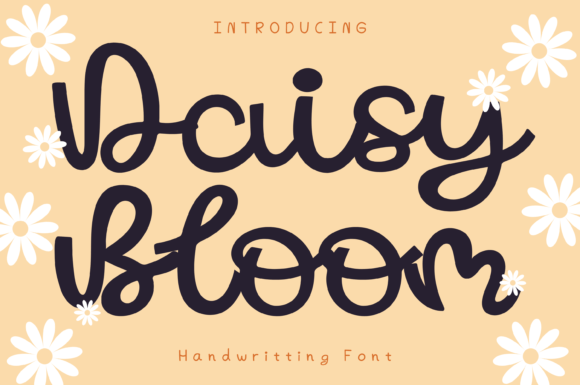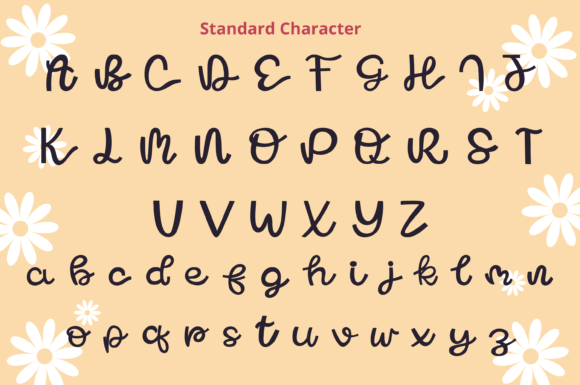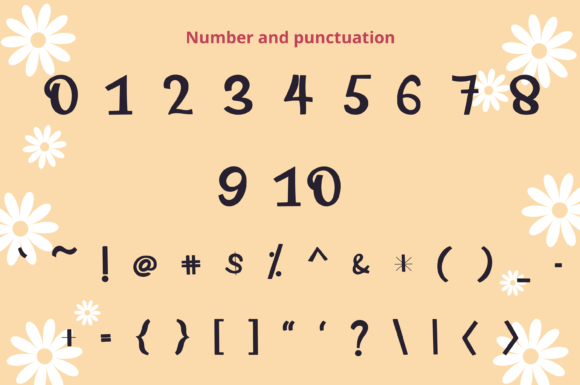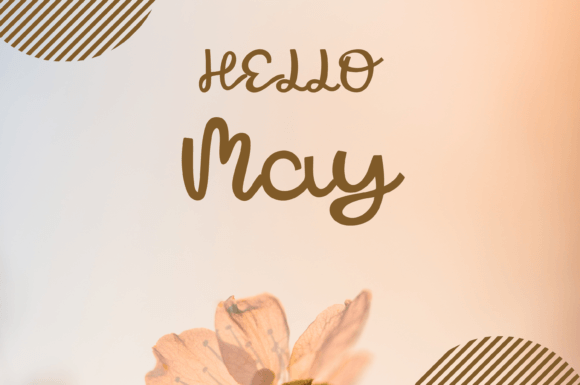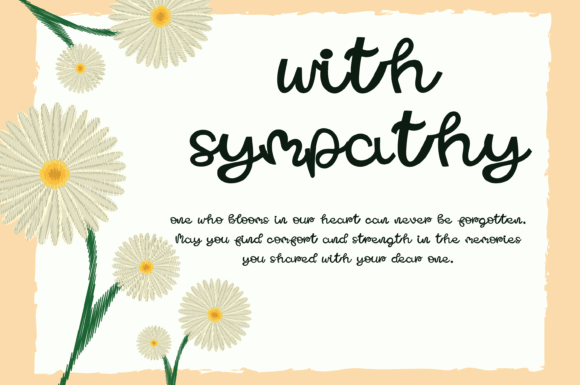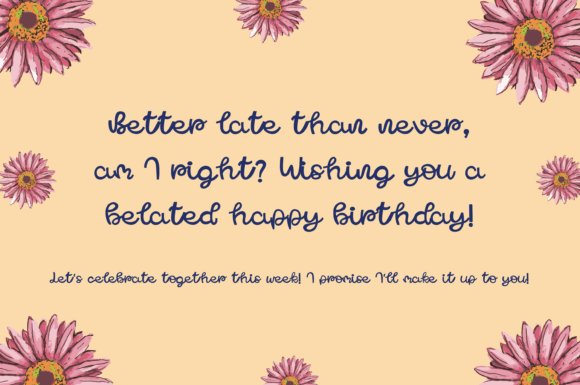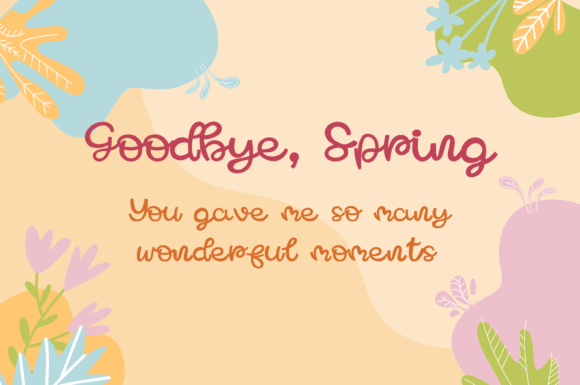
Adding Whimsy to Your Designs: The Power of Daisy Bloom Font
Remember that moment when you’re brainstorming ideas for a new project, and suddenly, a spark of creativity hits you? The words start flowing, and you can envision the perfect visual representation. This is where the right font can make all the difference. A beautiful, handwritten font can elevate your design from ordinary to extraordinary, and that’s exactly what the Daisy Bloom Font is designed to do.
With its whimsical and clean style, the Daisy Bloom Font is perfect for a wide range of projects, from invitations and greeting cards to branding and advertising materials. As a designer, you’ll appreciate the versatility and uniqueness it brings to your work. Whether you’re looking to add a touch of elegance or a dash of playfulness, the Daisy Bloom Font is sure to make your designs stand out.
Daisy Bloom Font Key Features
- Font Styles: Daisy Bloom Font is available in 3 unique font styles: Regular, Italic, and Bold, allowing for a wide range of creative applications.
- Unique Characteristics: Daisy Bloom Font features a unique blend of hand-drawn and digital elements, resulting in a distinctive, elegant, and sophisticated design aesthetic.
Daisy Bloom Font Review
As a designer, I was excited to dive into the “Daisy Bloom Font” and see what it had to offer. The font is a beautiful, whimsical script that’s perfect for creating a soft, feminine look.
- ✨ The font is incredibly legible, even at smaller font sizes. The letterforms are well-designed and easy to read.
- ✨ The font’s texture and subtle imperfections give it a unique, hand-drawn feel that’s perfect for creative projects.
- ✨ The font comes in a range of weights and styles, making it easy to customize to suit your needs.
- ⚠️ The font may not be the best choice for highly technical or formal projects, as its playful feel may come across as unprofessional.
- ⚠️ Some users may find the font’s texture and imperfections distracting or overwhelming, especially in large blocks of text.
Overall, I think the “Daisy Bloom Font” is a lovely addition to any designer’s toolkit. While it may have some limitations, its unique charm and versatility make it a great choice for a wide range of creative projects.
Some tips for getting the most out of the Daisy Bloom font include using it in combination with bright and bold colors, and experimenting with different font sizes and styles to create visual interest. Common use cases for the Daisy Bloom font include invitations, social media graphics, custom logos, branding materials, presentations, and reports.